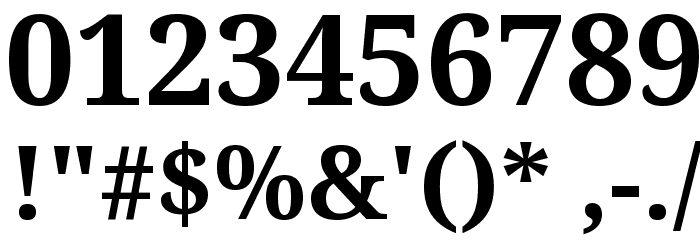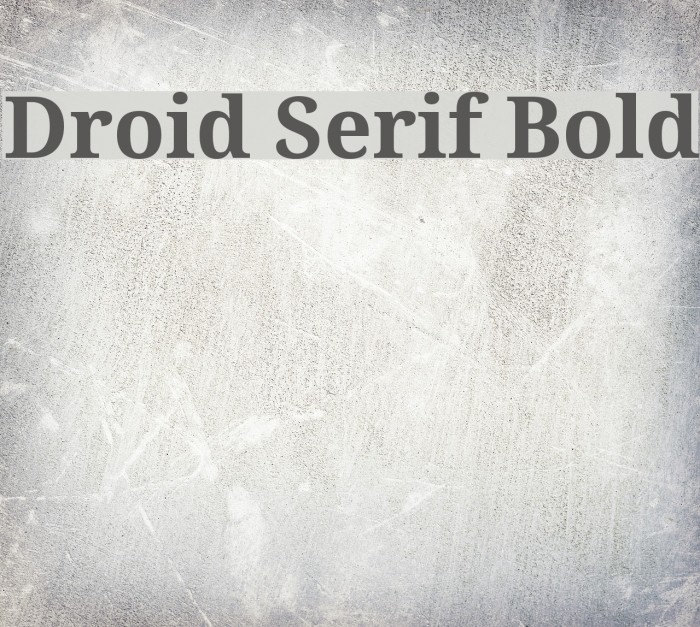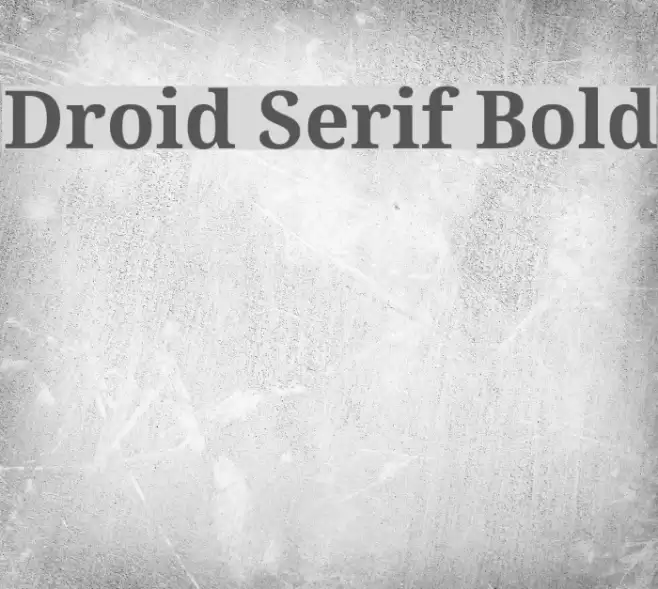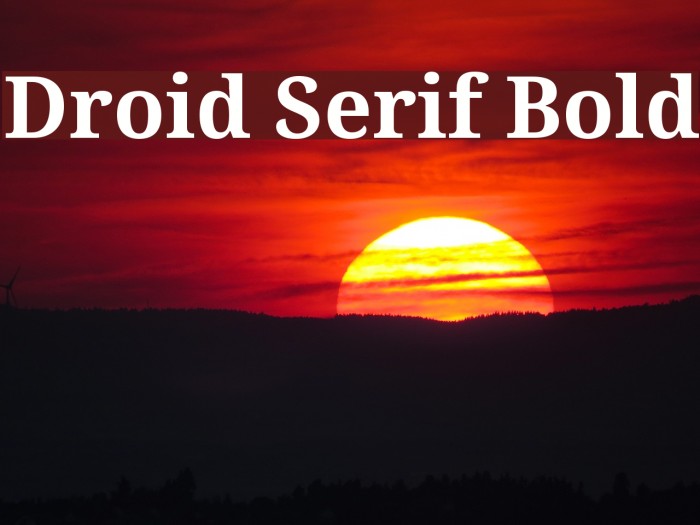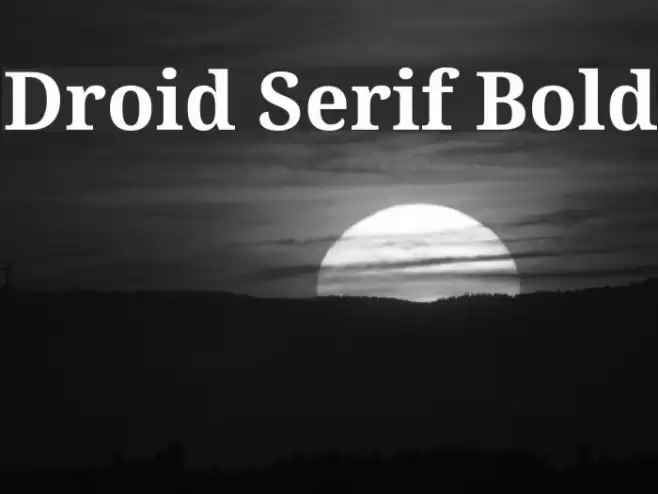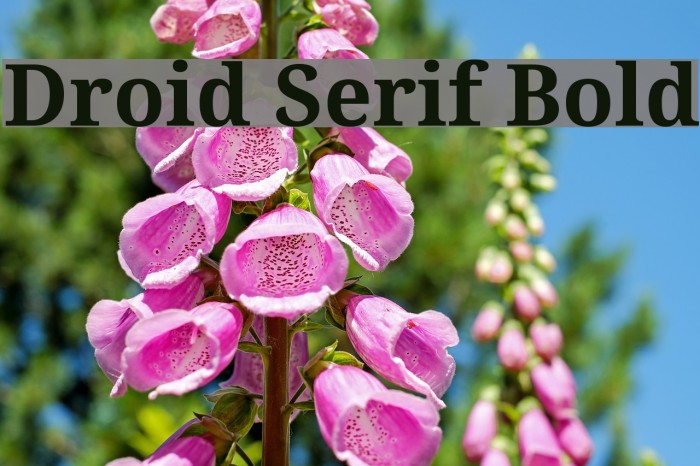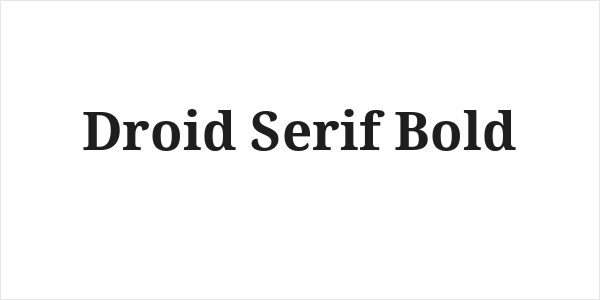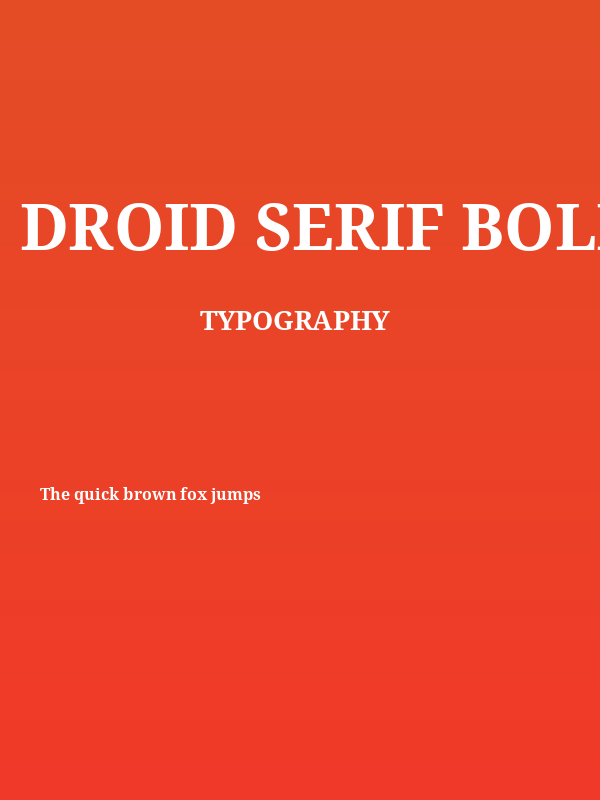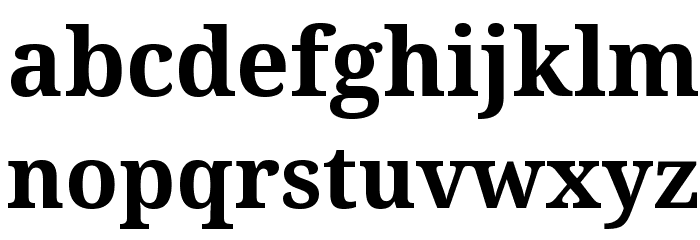
Droid Serif Bold Font
Droid Serif Bold Description
This typeface features a classic serif design with strong, bold strokes that convey a sense of authority and tradition. The serifs are pronounced, adding a touch of elegance and readability, making it suitable for both print and digital media. The uppercase letters are well-proportioned, while the lowercase letters maintain a consistent x-height, ensuring clarity and balance. The numerals are clear and distinct, and the special characters are well-integrated, providing versatility for various uses. Overall, this font combines traditional serif elements with a modern boldness, making it ideal for impactful headlines and professional documents.